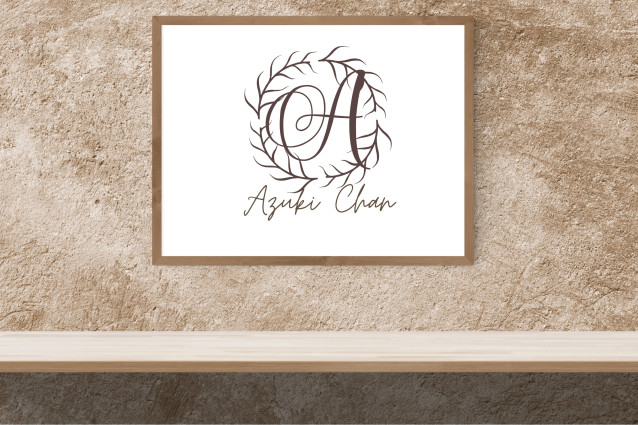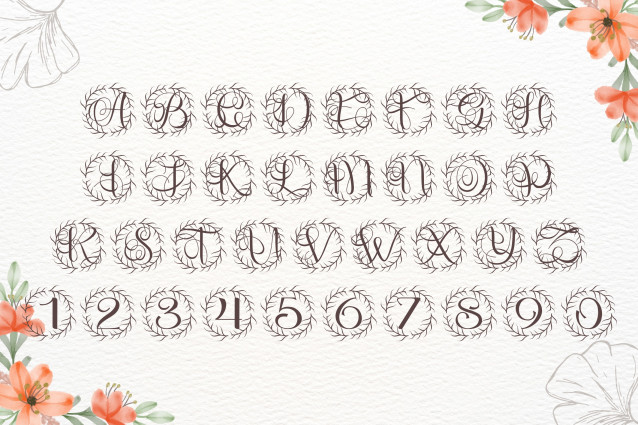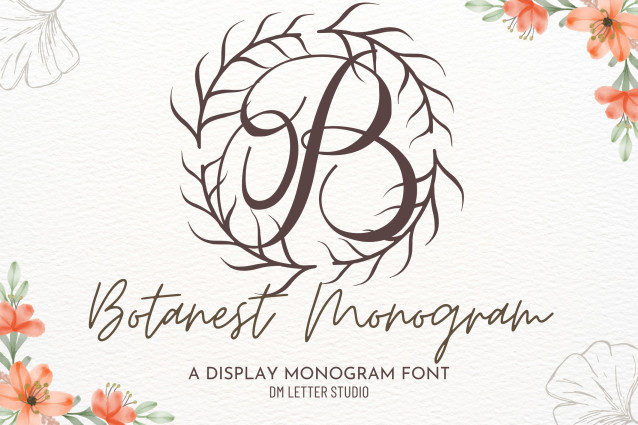
Botanest Monogram Font
Botanest Monogram Font is a refined serif monogram font with organic botanical accents. Each uppercase letter is delicately decorated with leafy stems, creating a balance between classical typography and natural beauty. Ideal for wedding stationery, boutique logos, personalized gifts, and luxury packaging, Botanest Monogram adds a graceful, nature-inspired touch to your designs.